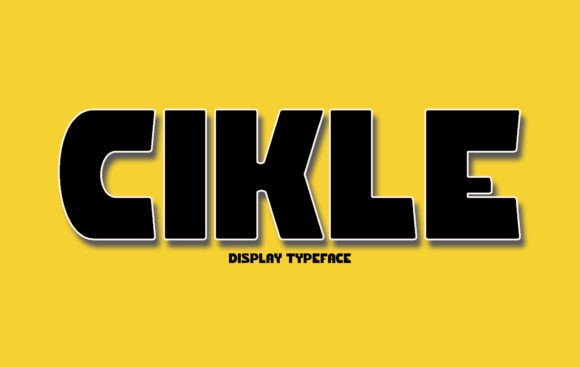
Step into the realm of visual enchantment with Cikle Font, the sans serif font that captures the electric pulse of LED displays. Designed by the ingenious Ceeskiiw, Cikle Font is a rhapsody of bold lines and captivating curves, injecting life into your creations like never before.
Experience the thrill of crafting logos that dance with energy, posters that ignite imaginations, and social media posts that spark a whirlwind of engagement. Cikle Font's sharp edges and sleek personality perfectly complement the explosive brilliance of LED displays, captivating the eyes of your audience from the very first glance.
Unlock the power of Cikle Font, your secret weapon for creating designs that redefine the boundaries of ordinary. Feel the surge of adrenaline as your projects transform into mesmerizing spectacles, leaving an indelible mark on the hearts and minds of those who behold them.